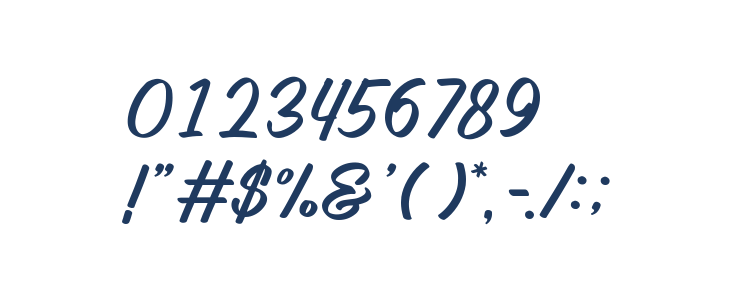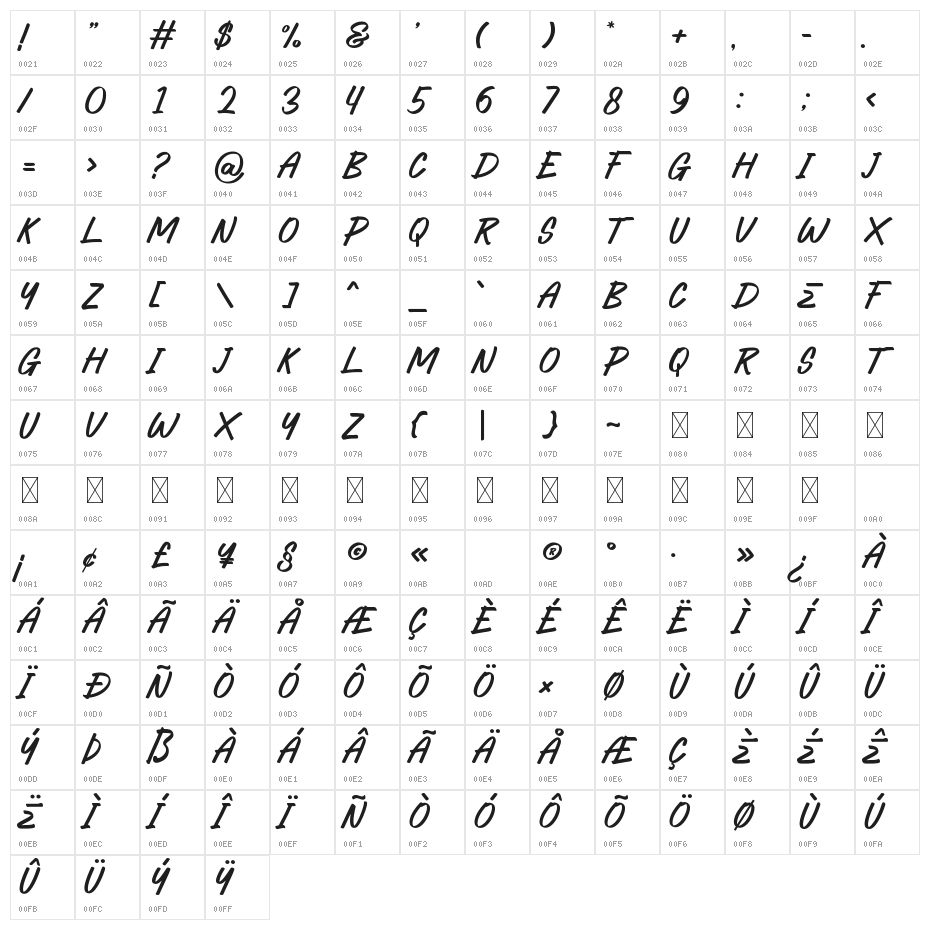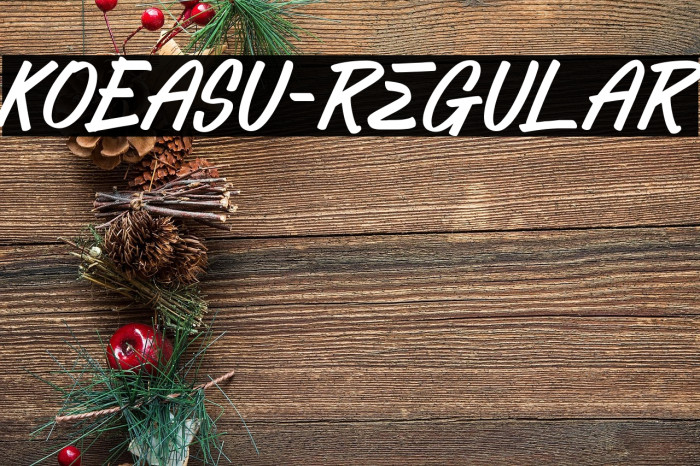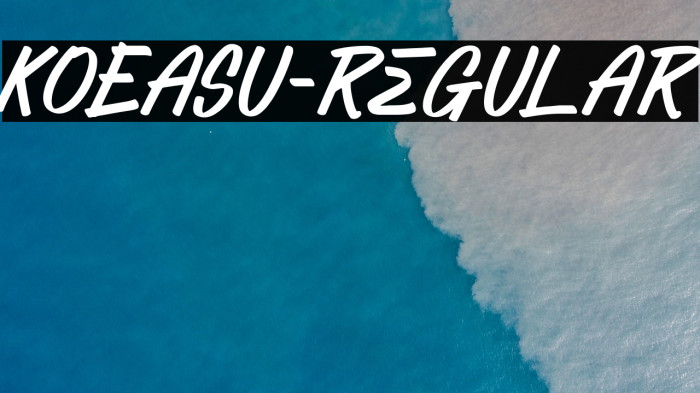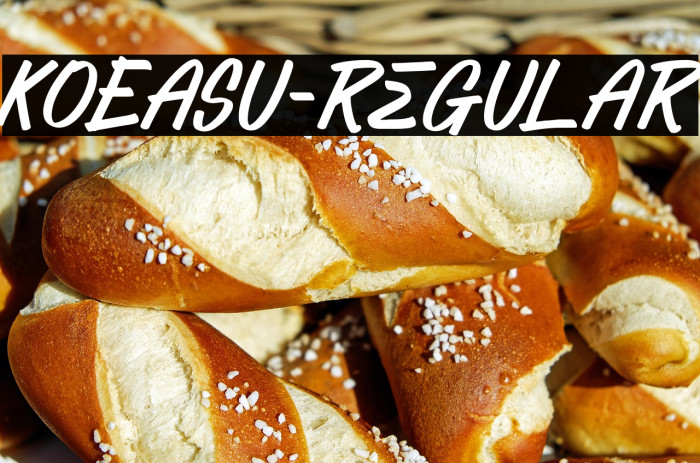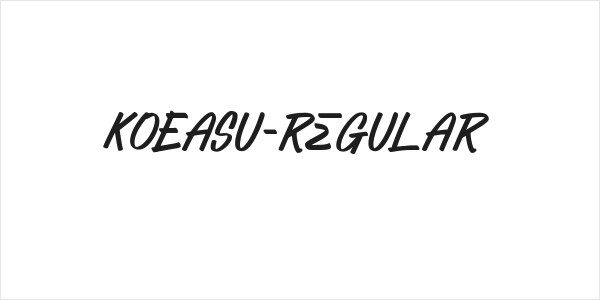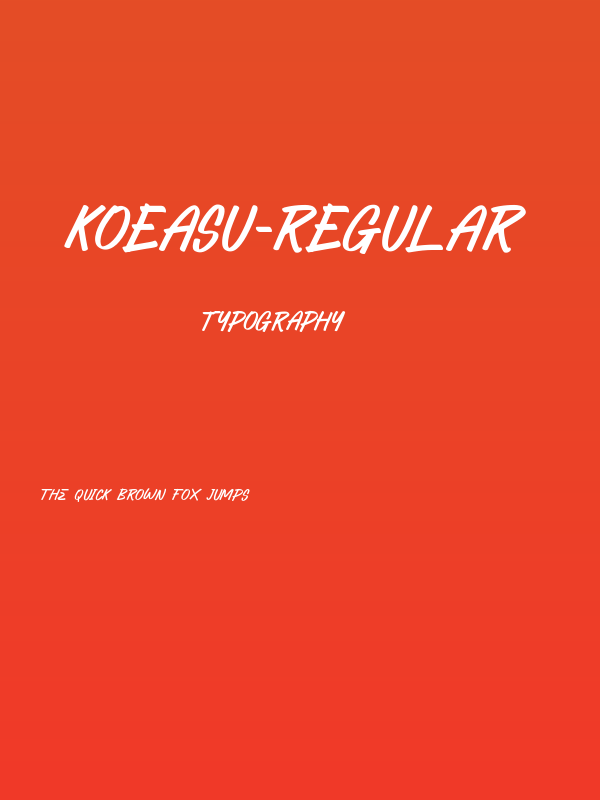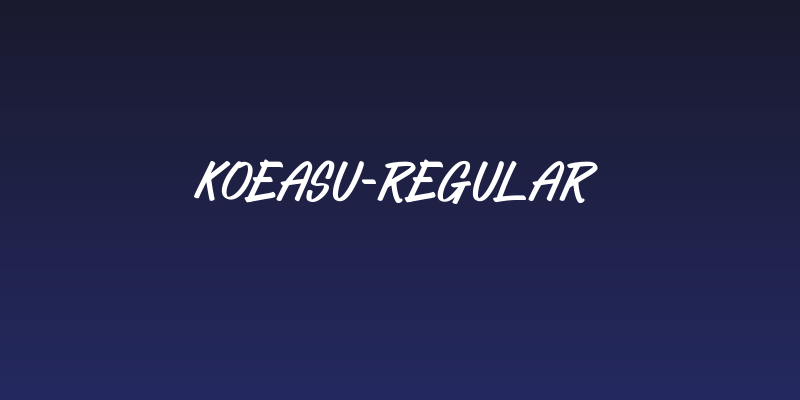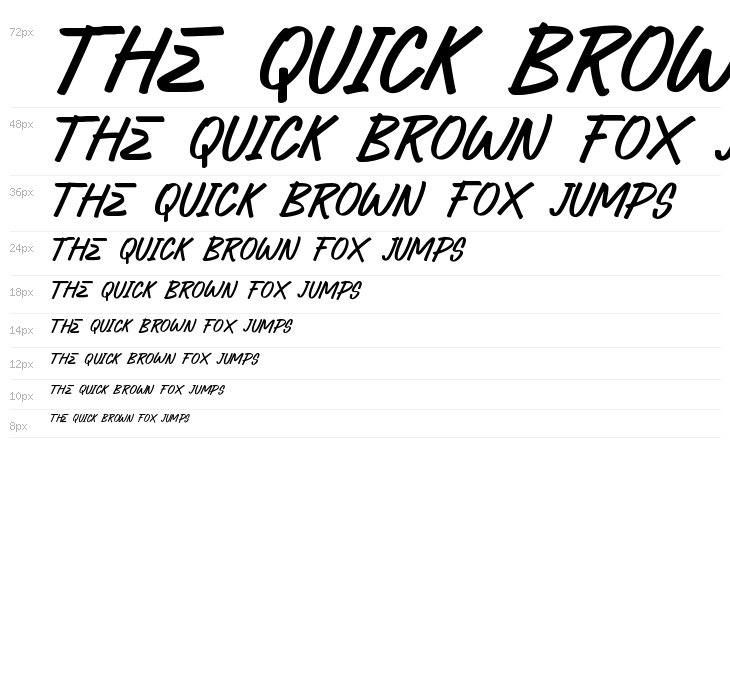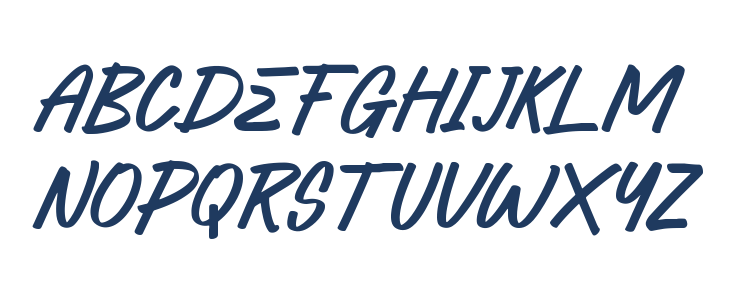
KOEASU-Regular Font
KOEASU-Regular Description
This font features a dynamic and energetic script style, characterized by its fluid and connected letterforms. The strokes are bold and slightly slanted, giving it a sense of movement and personality. The uppercase and lowercase letters maintain a consistent style, with smooth curves and a handwritten feel. The numbers and special characters are designed to match the overall aesthetic, ensuring a cohesive look across all text. This font is ideal for projects that require a personal touch or a casual, friendly vibe.
| Proposed Projects | Ideal for branding, invitations, greeting cards, and social media graphics. |